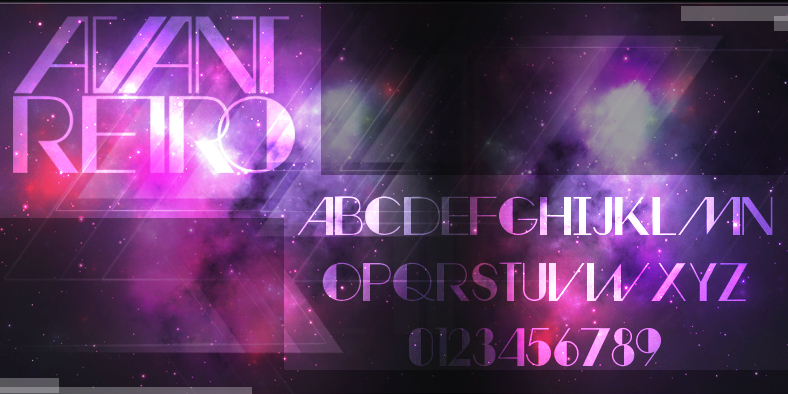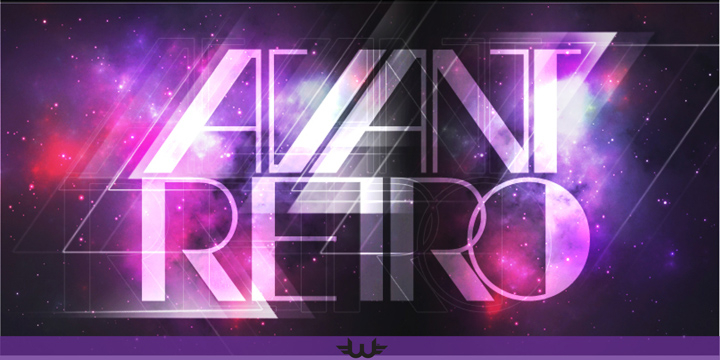
Avant Retro is a art deco font published by Weslo Fonts.
Avant Retro is created by Wesley Pastrana inspiration Letter avant garde is one of my favorites with futuristic and retro touch to make it that appeals to people in the Specialized poster and promotions.